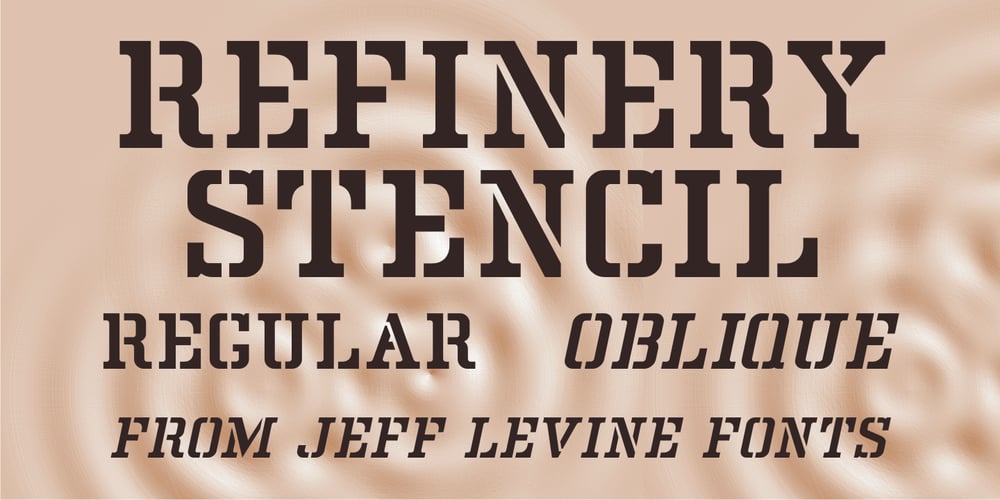
Refinery Stencil JNL Font Family was designed by Jeff Levine and published by Jeff Levine. Refinery Stencil JNL contains 2 styles and family package options. A vintage brass stencil used for marking oil drum lids for the Standard Oil Company of Kentucky served as the model for Refinery Stencil JNL, which is available in both regular and oblique versions.